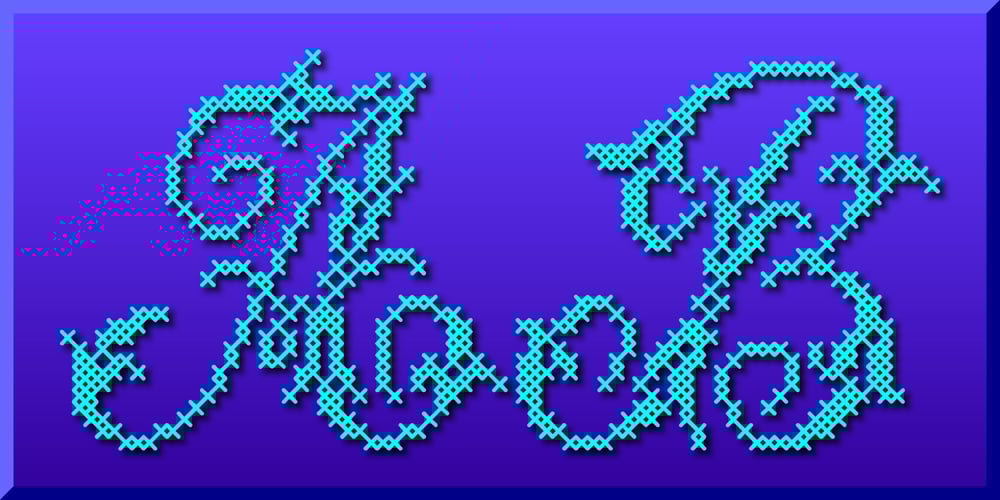
Cross Stitch Majestic Font Family was designed by Gerald Gallo and published by Gerald Gallo. Cross Stitch Majestic contains 1 styles and family package options. Cross Stitch Majestic is not intended for text use. It was designed specifically for use as fancy monograms or initials. Cross Stitch Majestic has an uppercase alphabet, 33 stitches tall, and is located under the shift+character set keys.